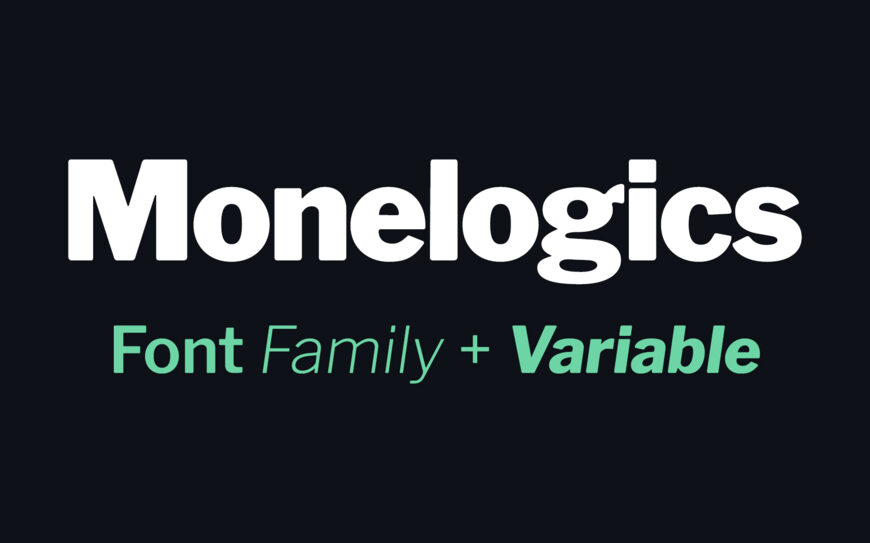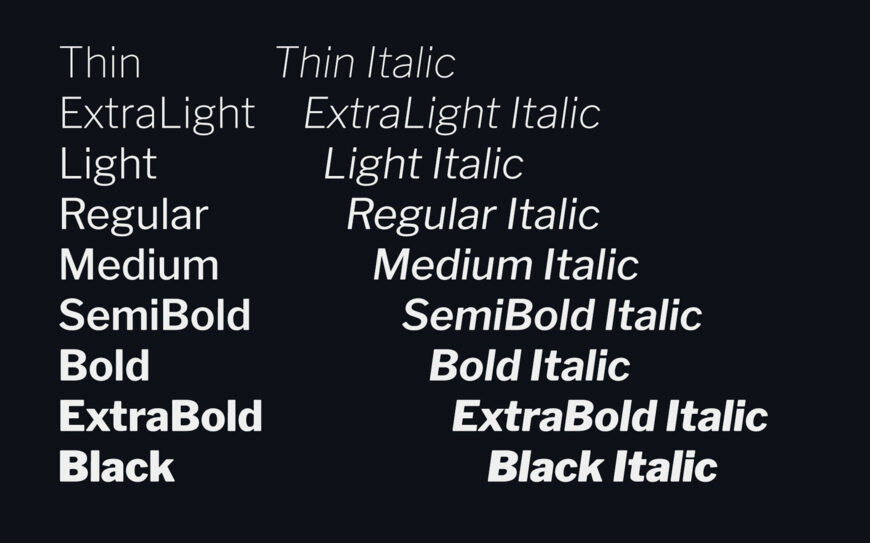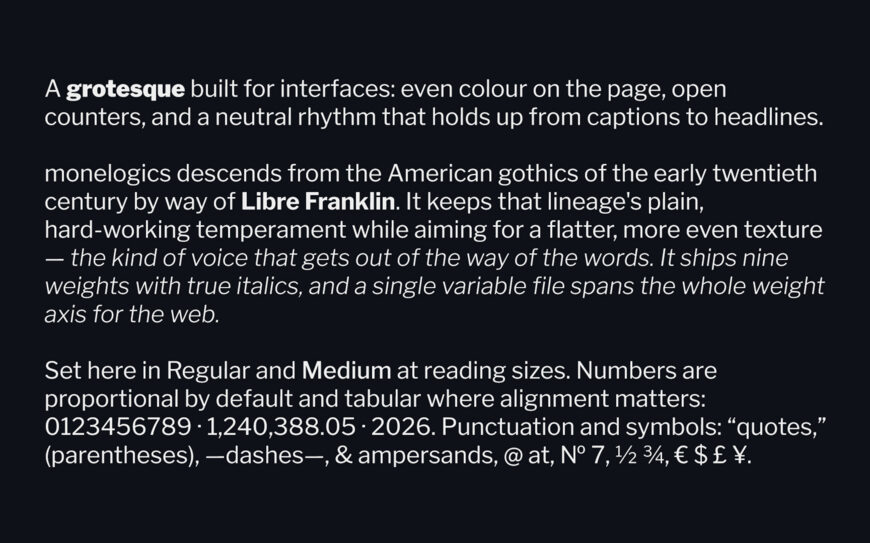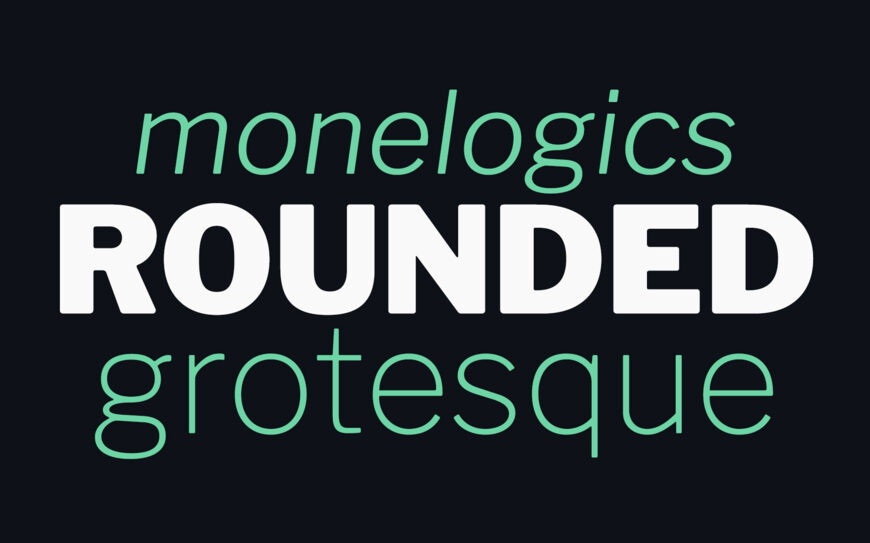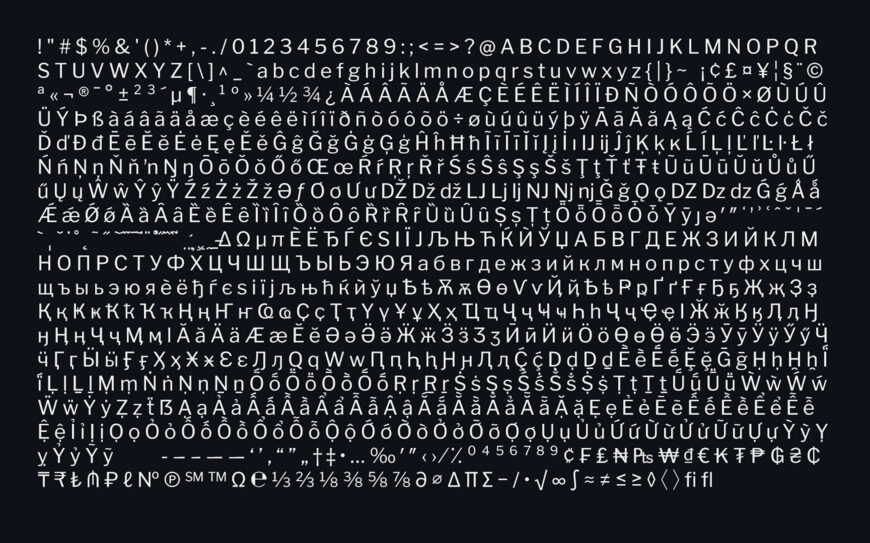
Monelogicsis is a rounded grotesque typeface engineered for UI and text. With open counters and balanced density, it delivers a neutral, readable rhythm at any scale—from tiny captions to bold headlines.
Monelogics family descends from the American gothics of the early twentieth century by way of Libre Franklin. It keeps that lineage’s plain, hard-working temperament while aiming for a flatter, more even texture — the kind of voice that gets out of the way of the words. It ships nine weights with true italics, and a single variable file spans the whole weight axis for the web.